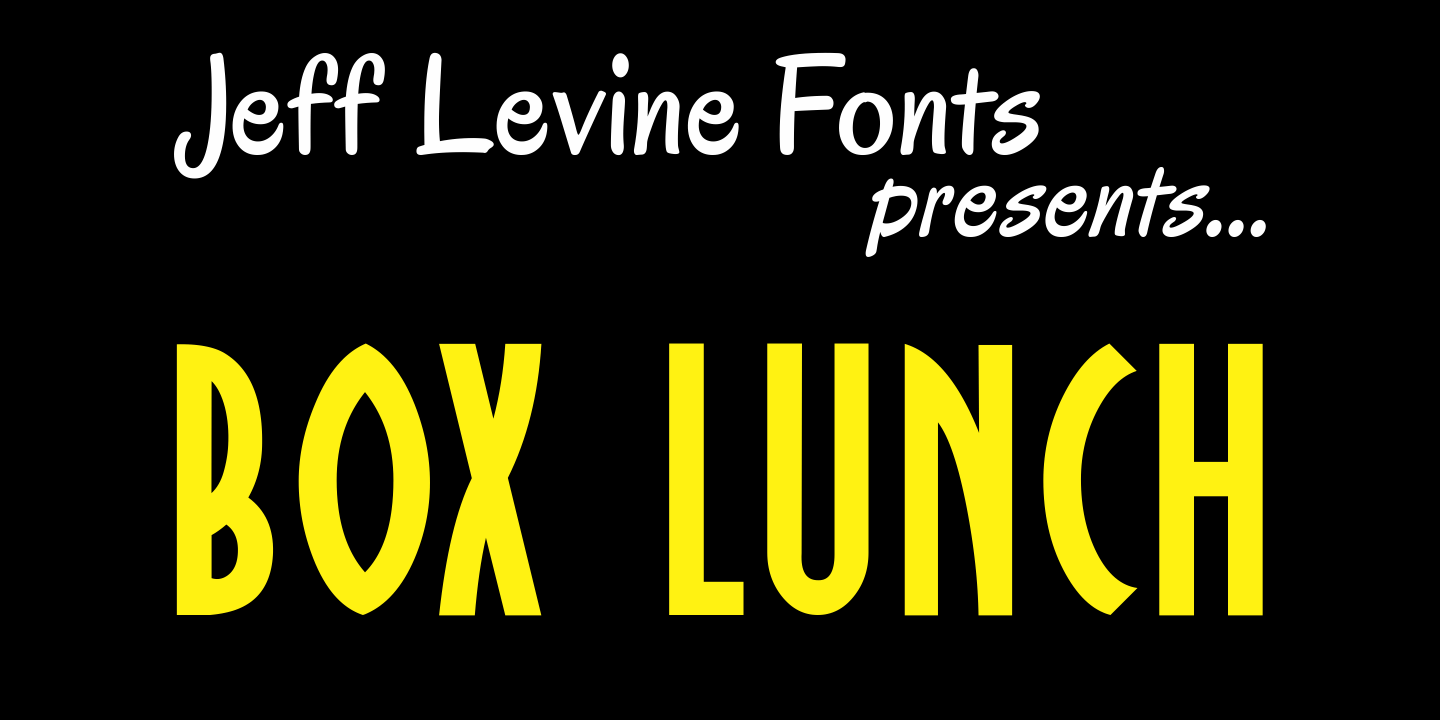
Box Lunch
Just two capital letters from a sign inspired Box Lunch JNL from Jeff Levine. The restaurant - an early 1950s favorite in Miami Beach, Florida specialized in fried chicken meals and other delights of the day - long before the big corporate chains took over the local landscape.
Box Lunch JNL Regular by Jeff Levine Fonts